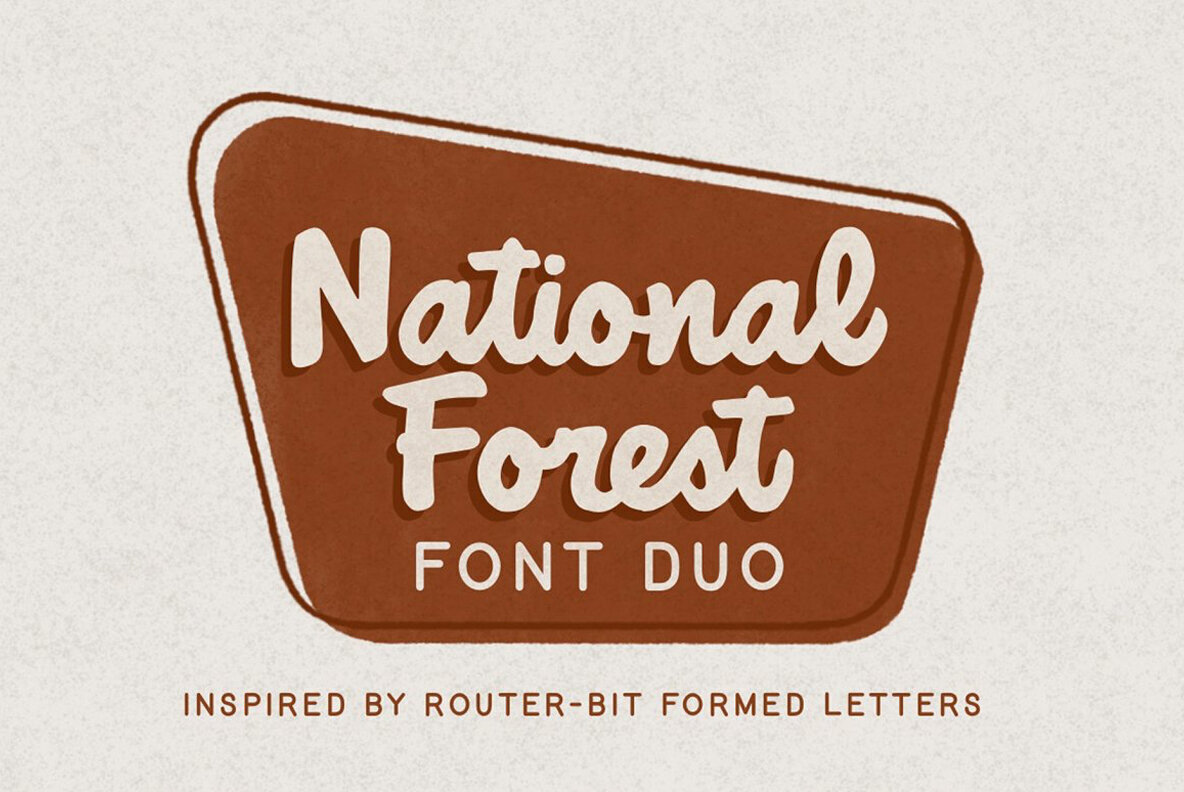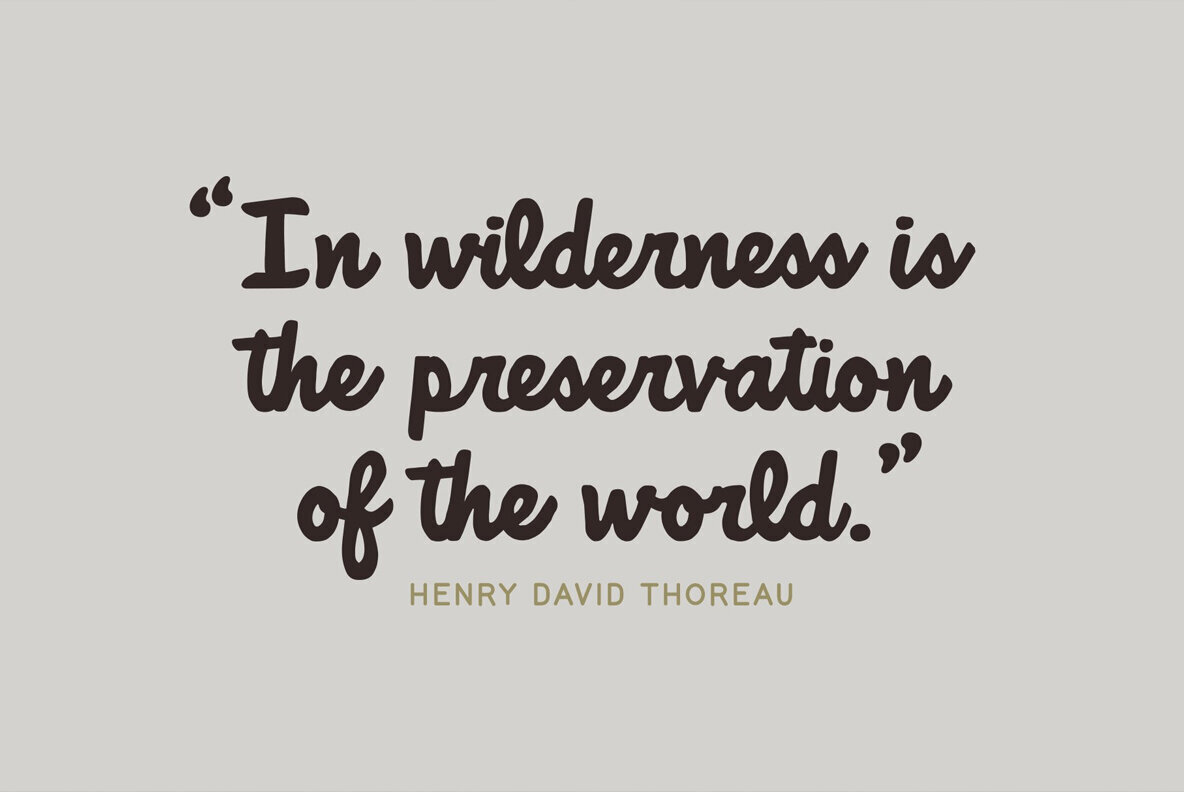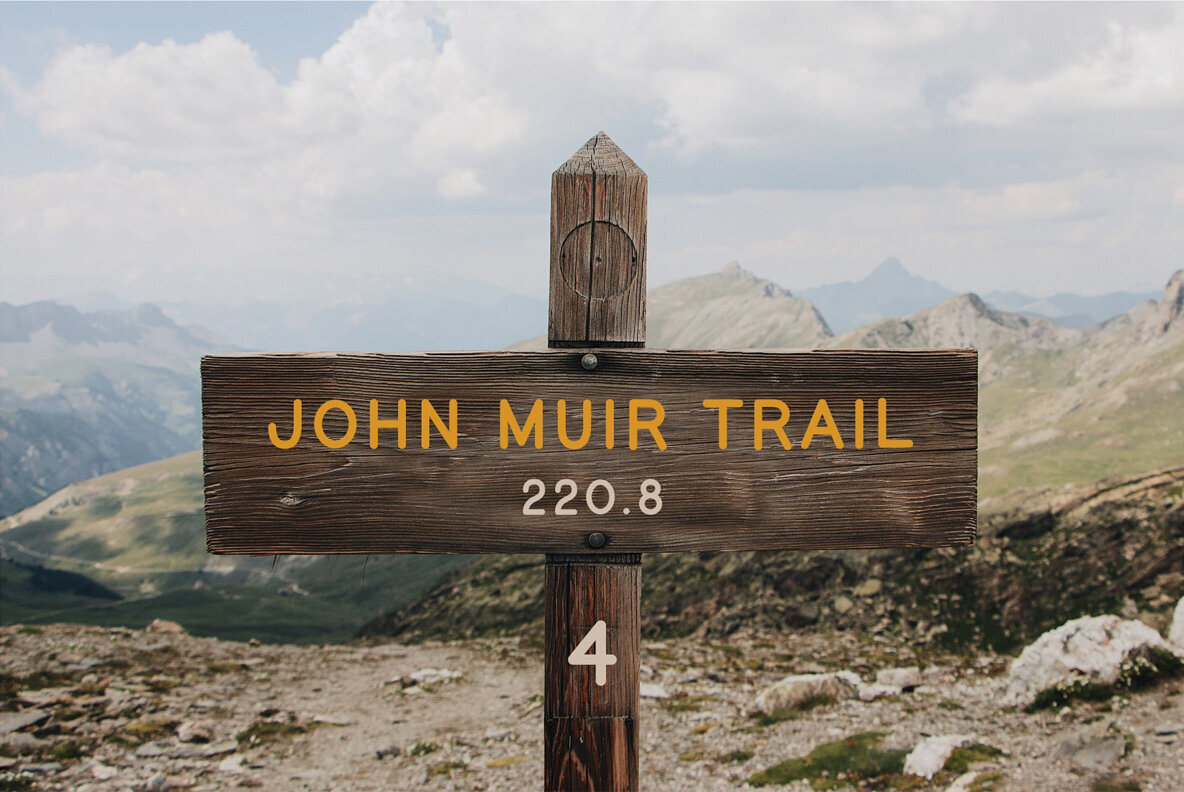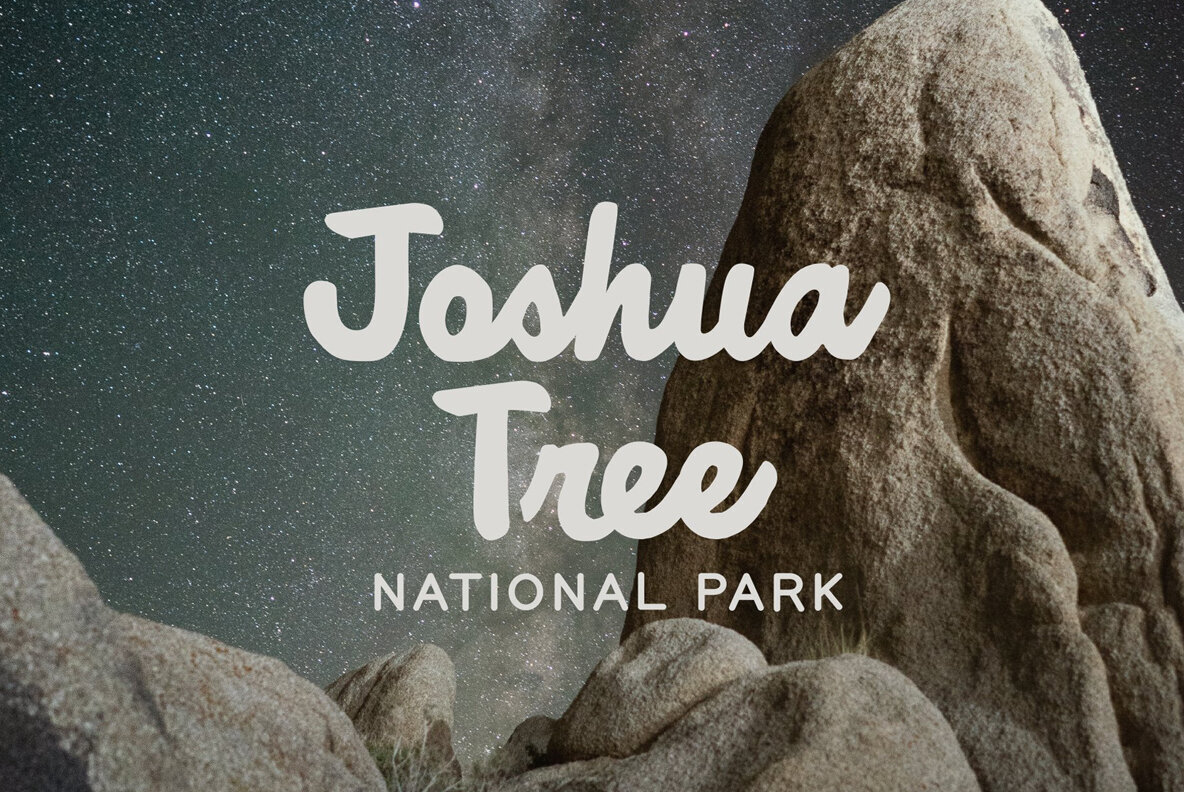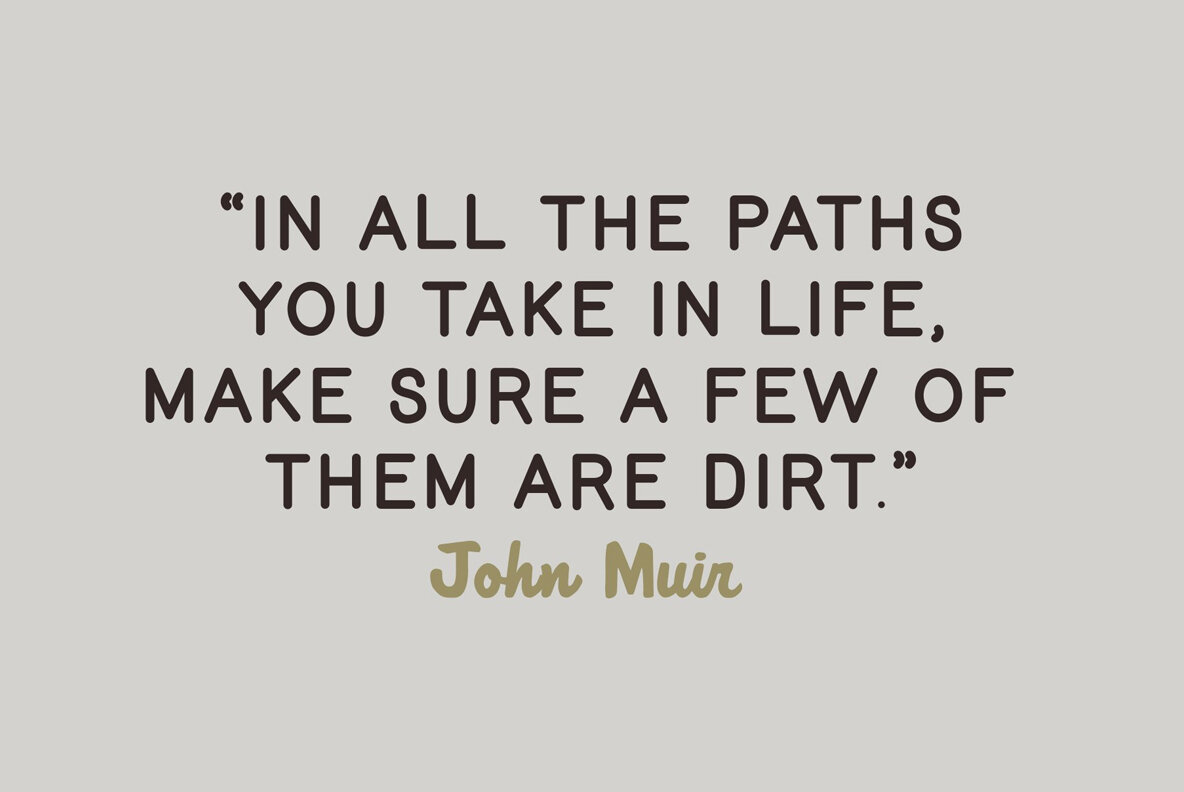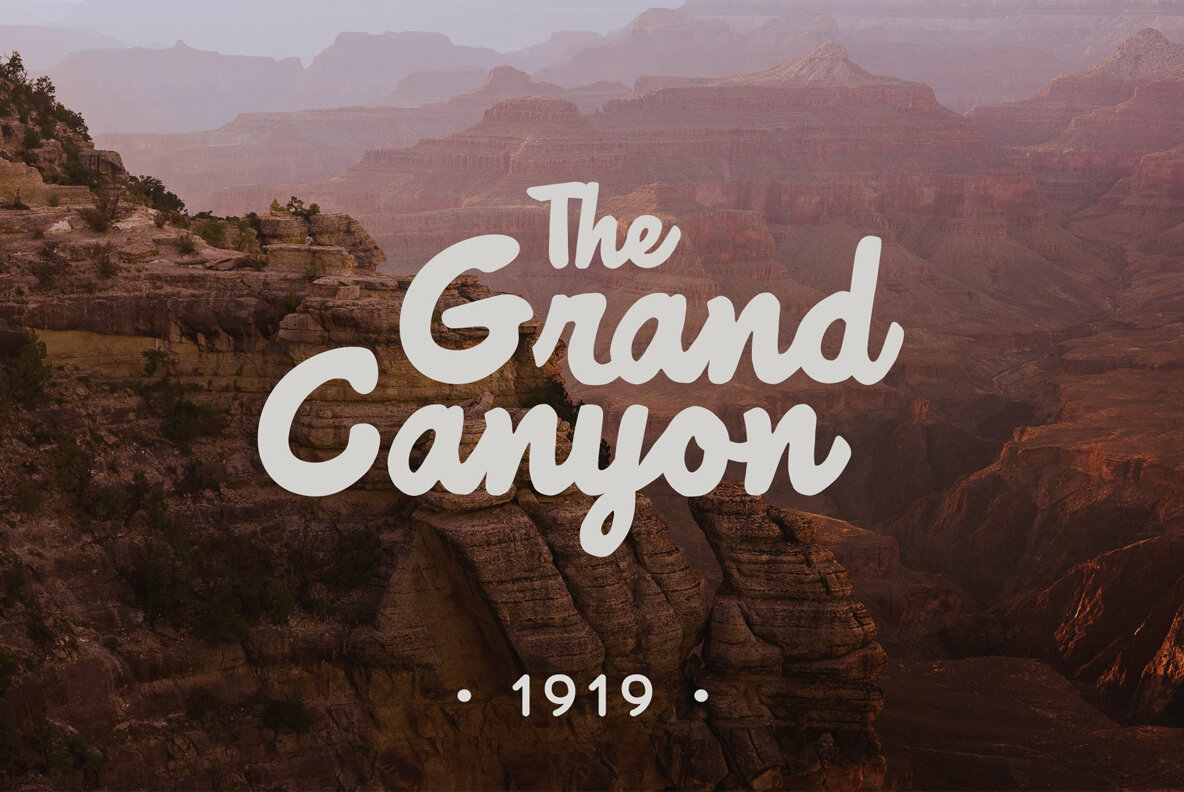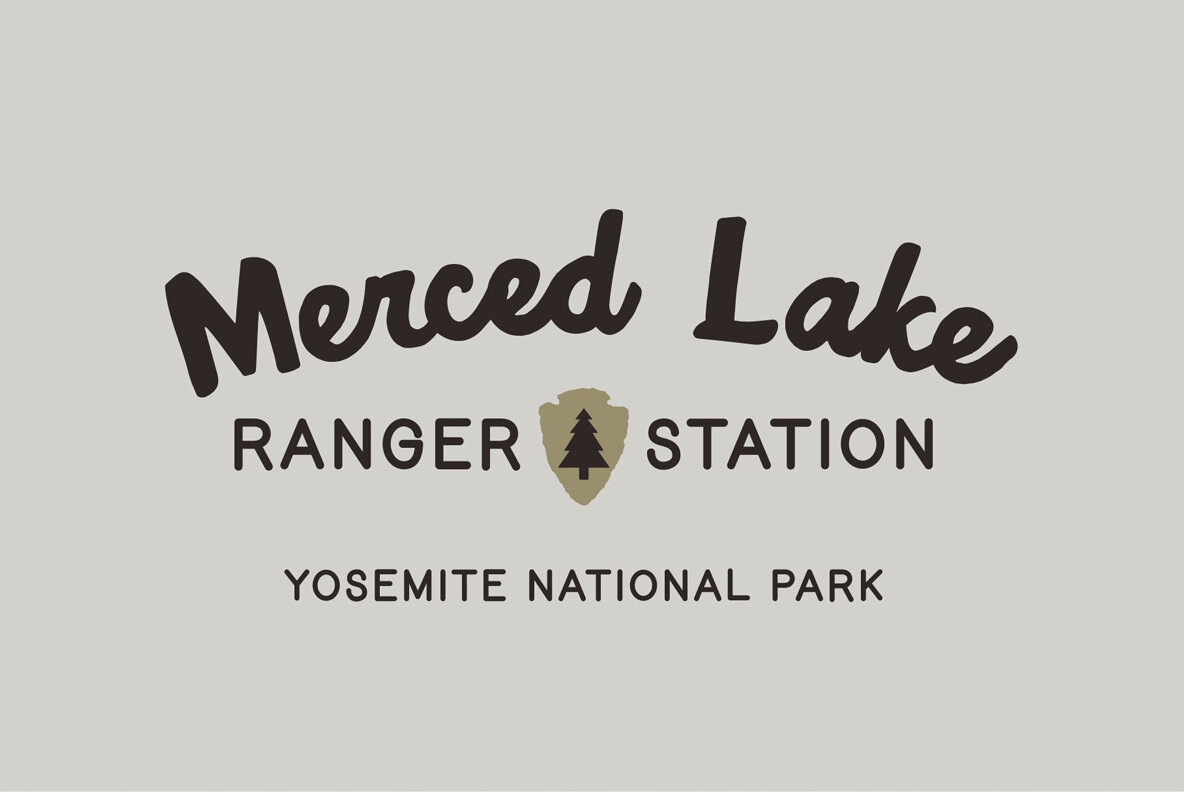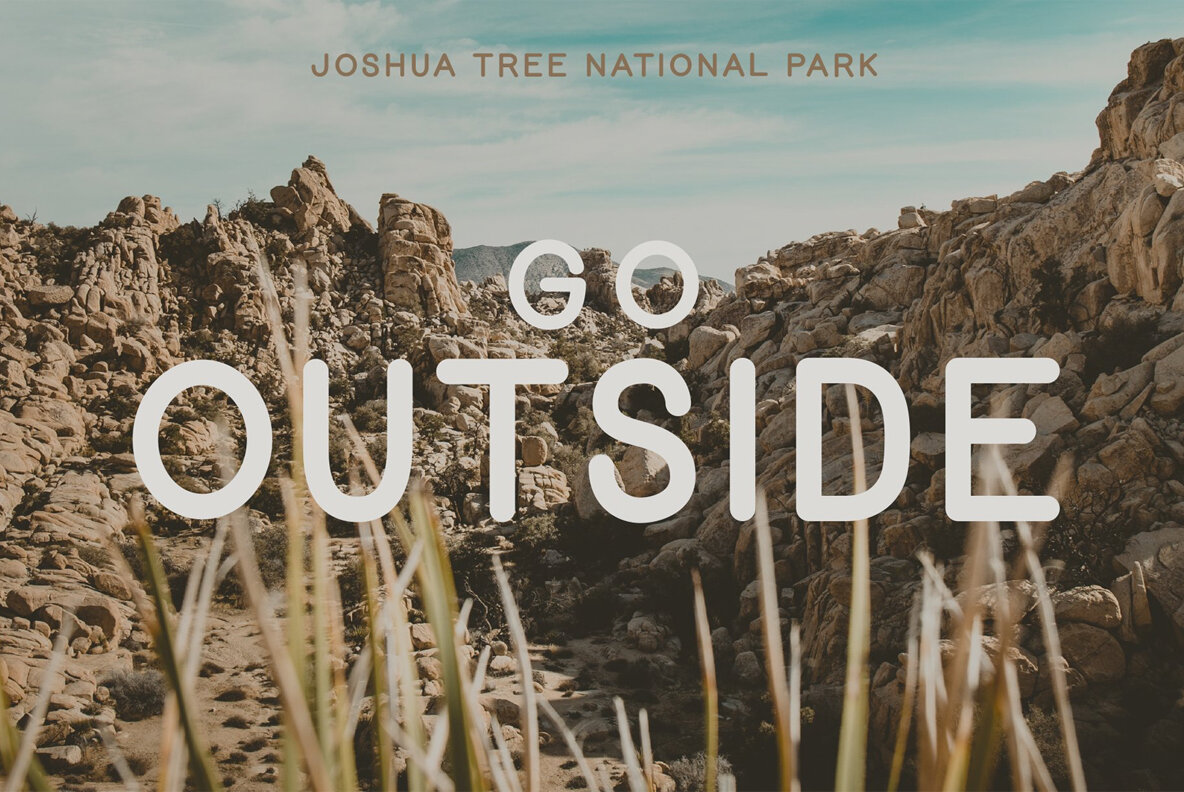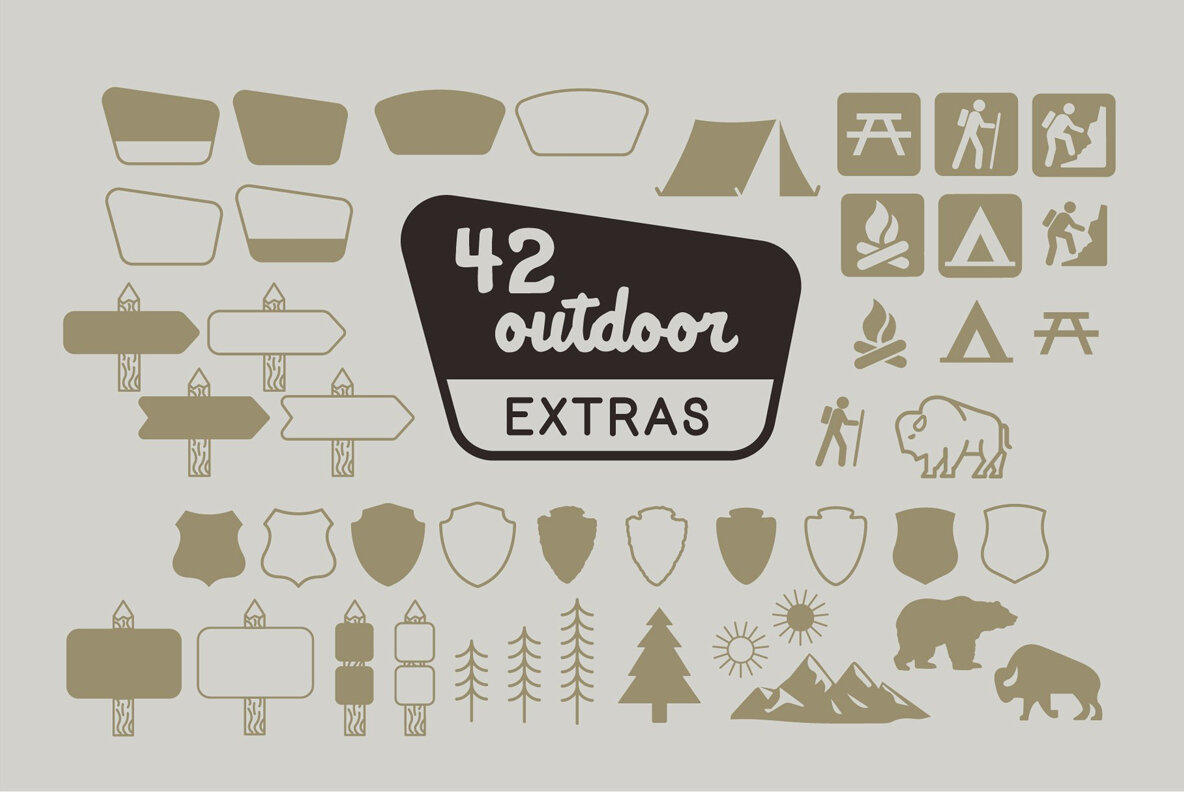
National Forest Font Duo
National Forest is a font duo inspired by the National Park Service signs that are all made using a router bit. It was designed to put the timeless nostalgia of national park signs into a digital typeface. National Forest has a quirky, retro style and its’ natural imperfections add to its’ charm. The script and print complement each other well for branding, display, or marketing.